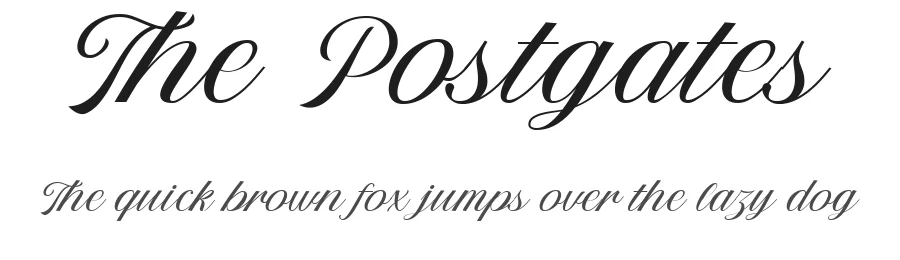
About Ayla Script Font
Ian Mikraz
Ayla Script Specifications
| Designer | Ianmikraz |
Ayla Script ships with 2 OpenType features you can switch on in apps that support them (Illustrator, InDesign, Affinity, Figma, CSS font-feature-settings).
Ayla Script Font is a script font that shines as a display or heading face. Pair it with a clean sans-serif or serif font for body text β the contrast creates a clear hierarchy while the two styles stay balanced and easy to read.
Ayla Script Font
by Ianmikraz